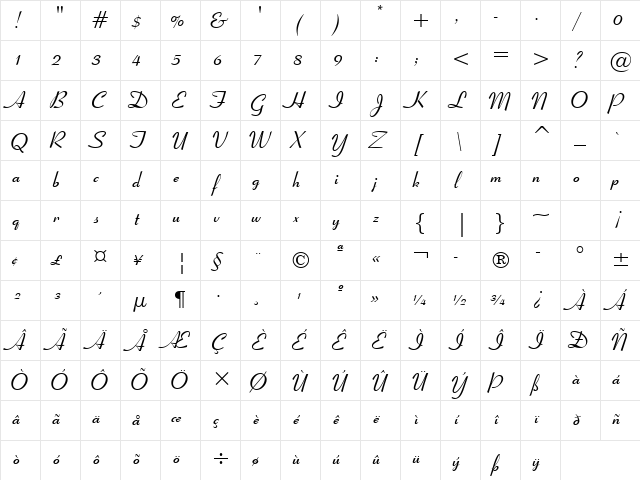
Ribbon131 Bd BT Bold
Design Context for Ribbon131 Bd BT
Ribbon131 Bd BT is a composed and adaptable typeface that performs quietly and consistently across a wide range of design contexts. Its bold stroke weight gives it real presence on the page.